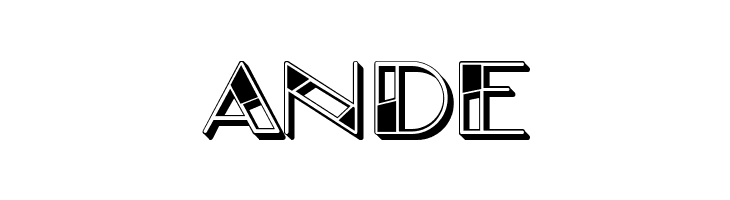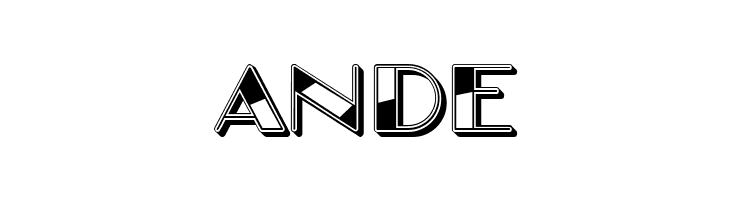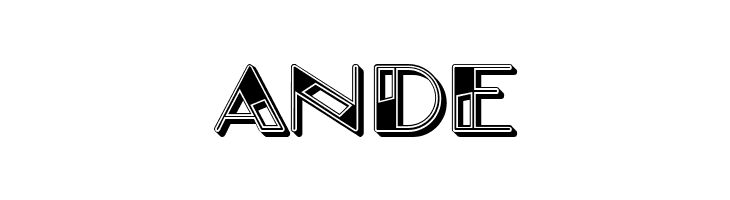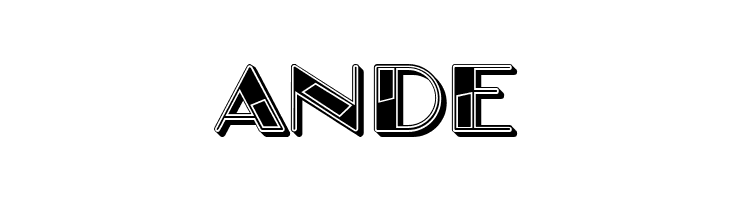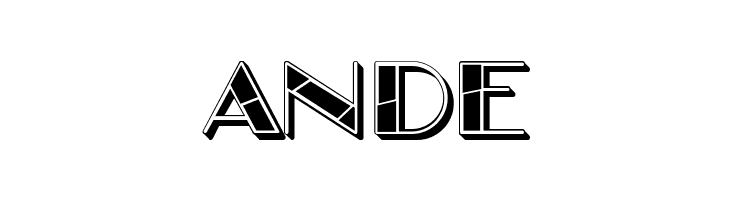
A bold, geometric font with a resin-filled, art deco-inspired design.
A bold, geometric hollow font with a three-dimensional effect.
A modern, geometric font with bold, angular lines and hollow interiors.
A bold, geometric font with a modern, three-dimensional style.
A bold, geometric font with a 3D effect and industrial feel.